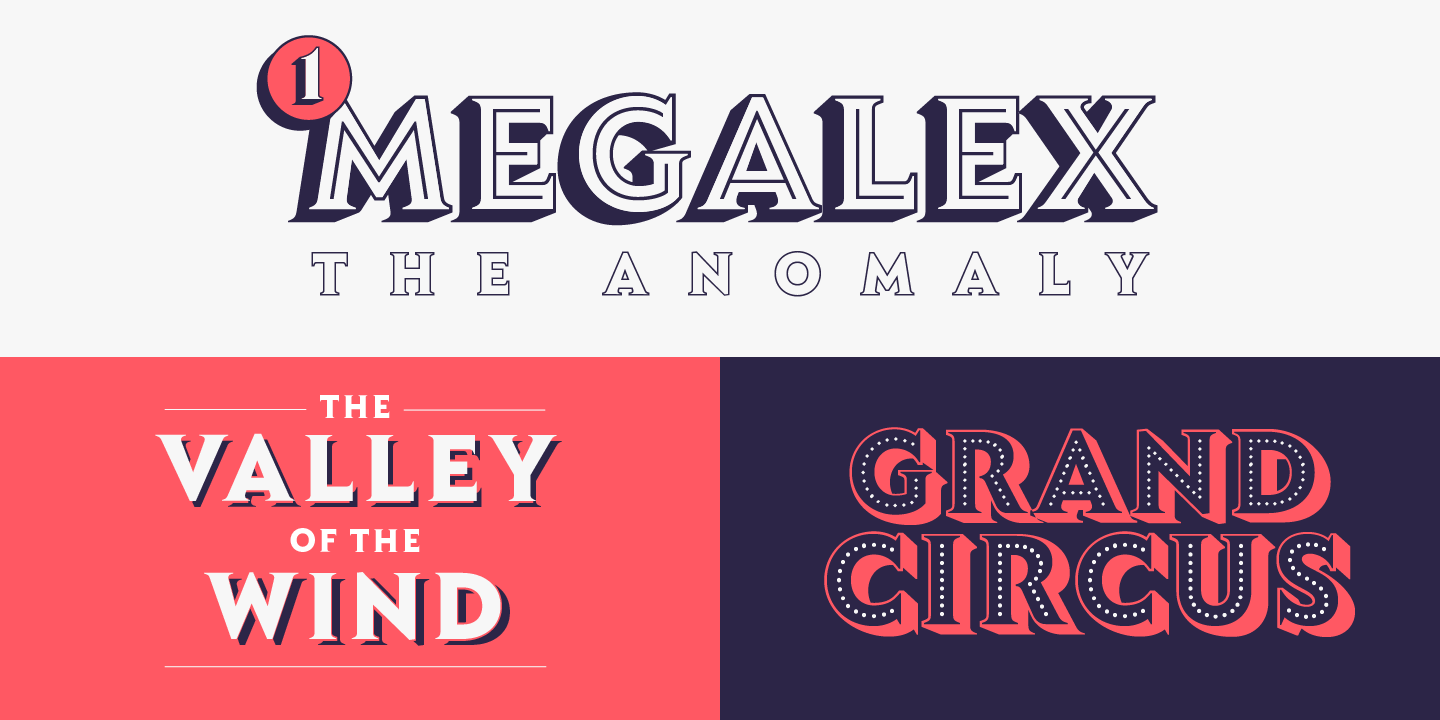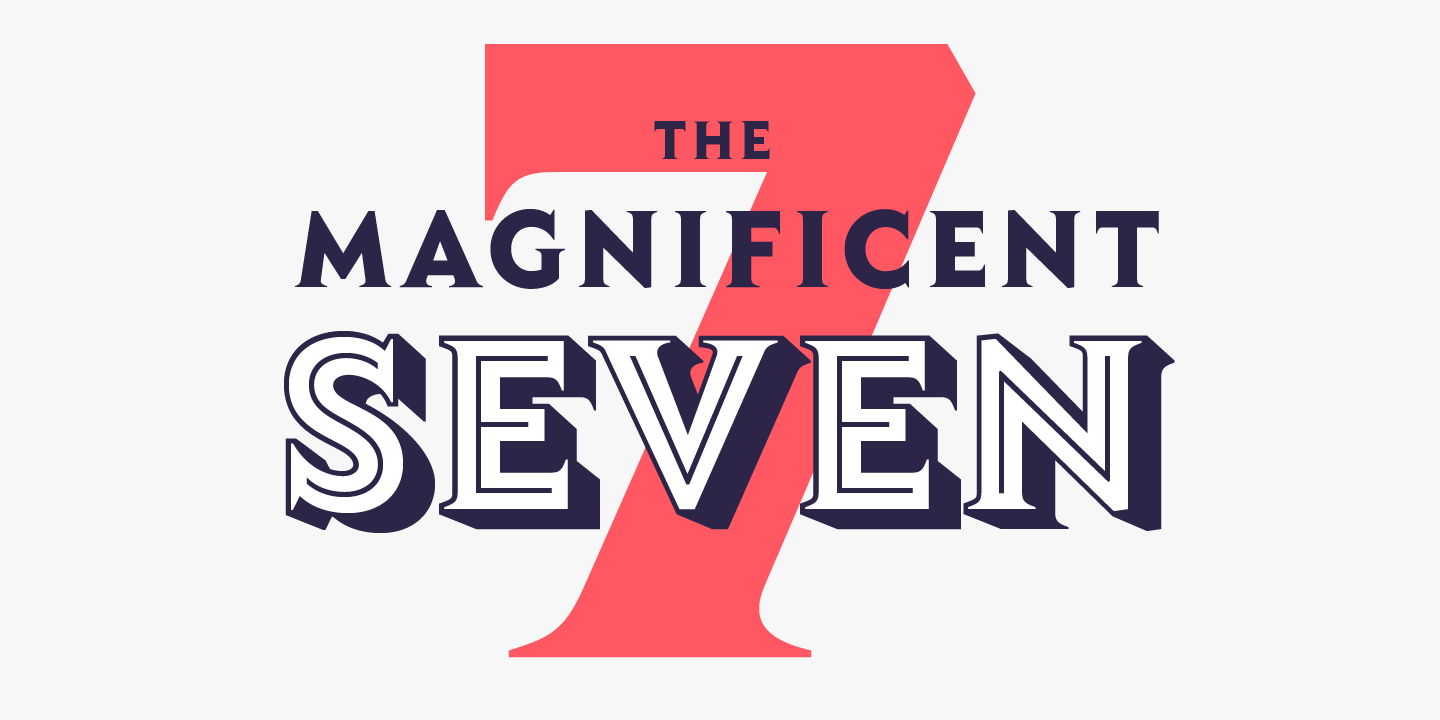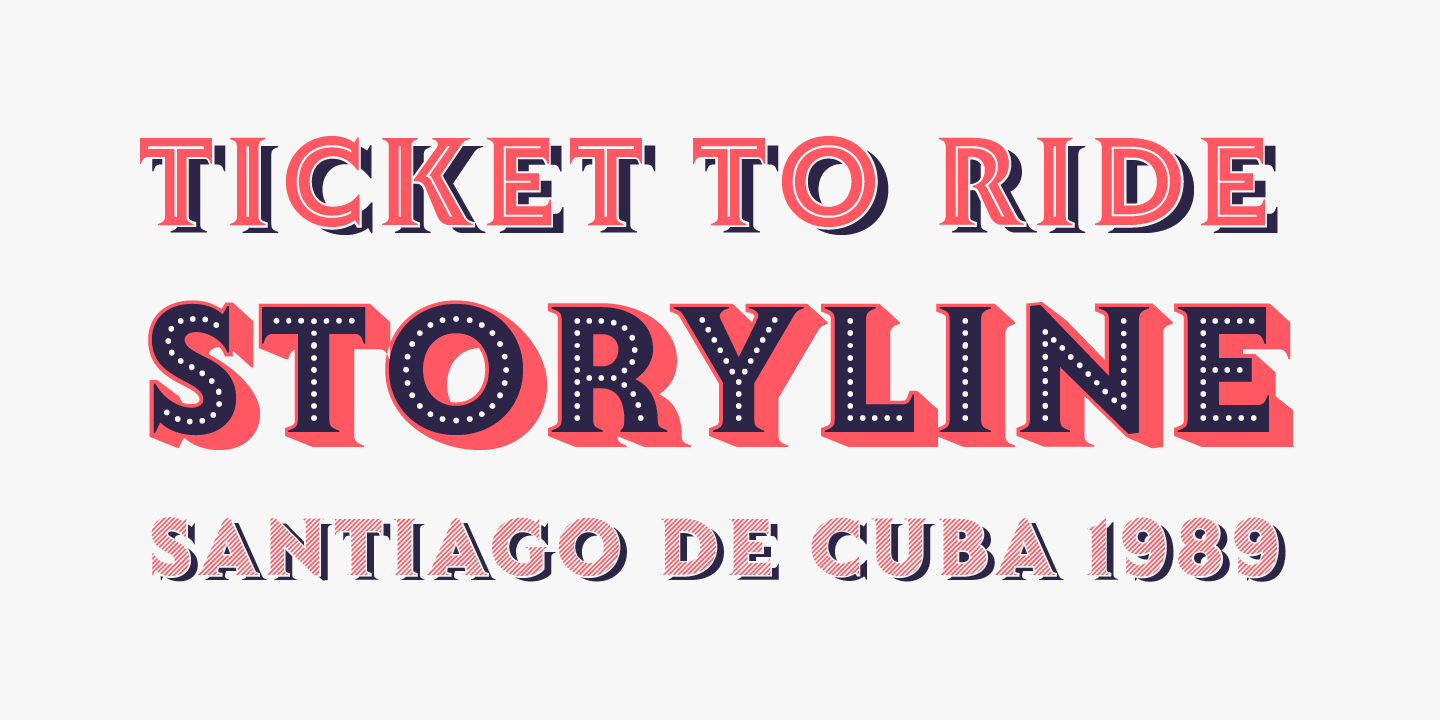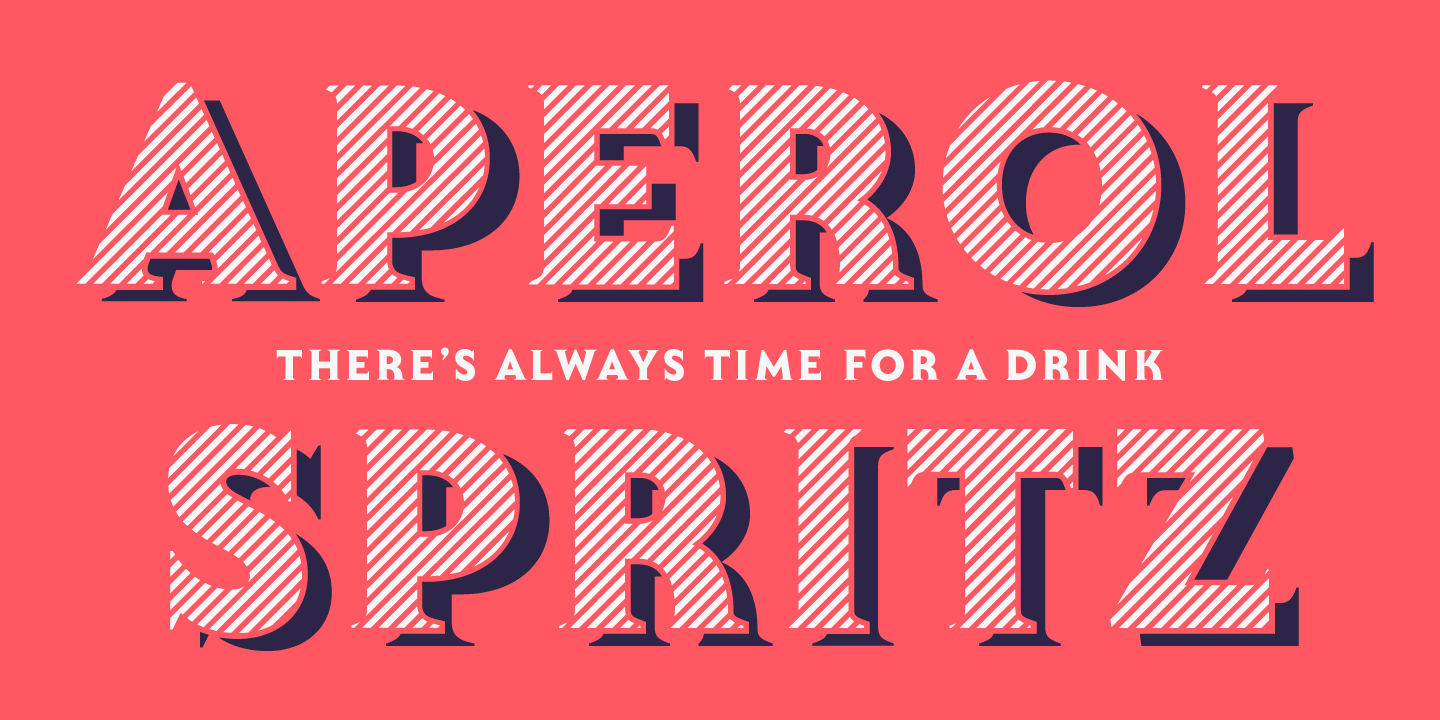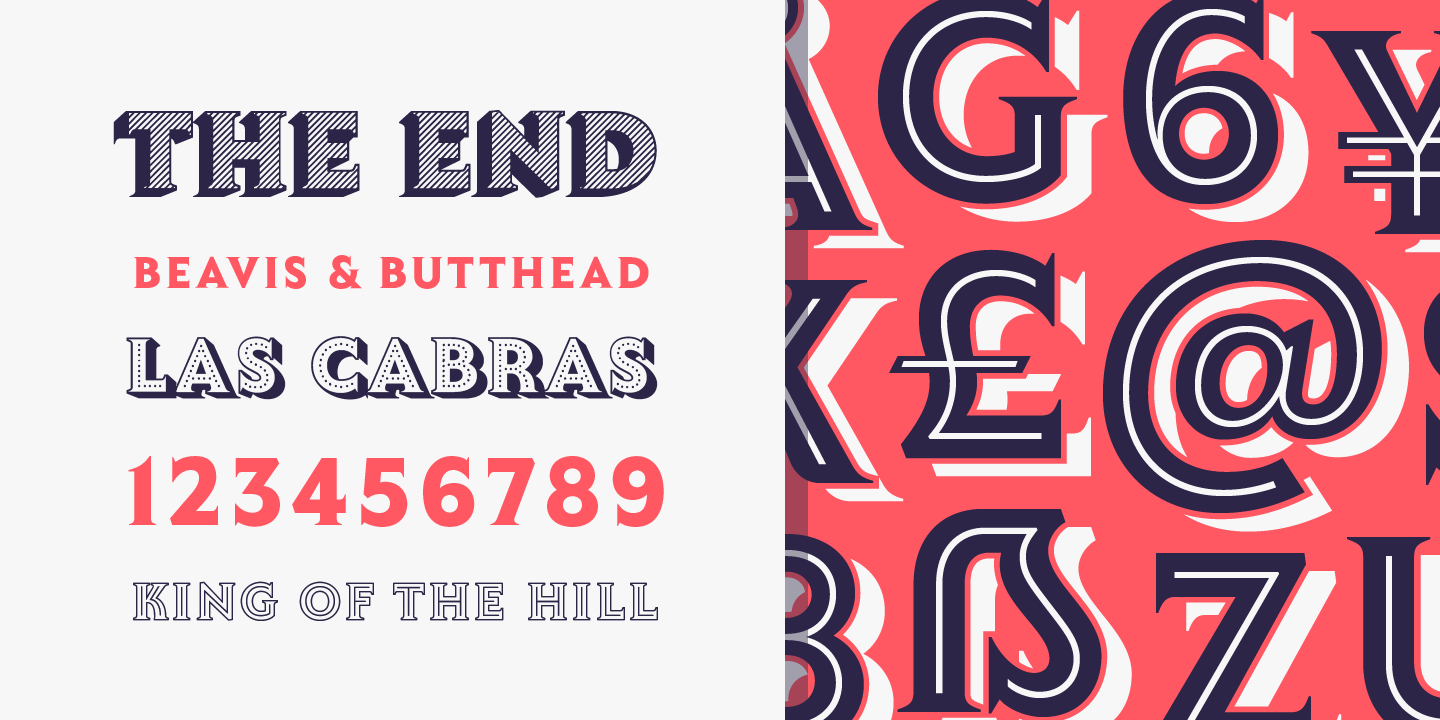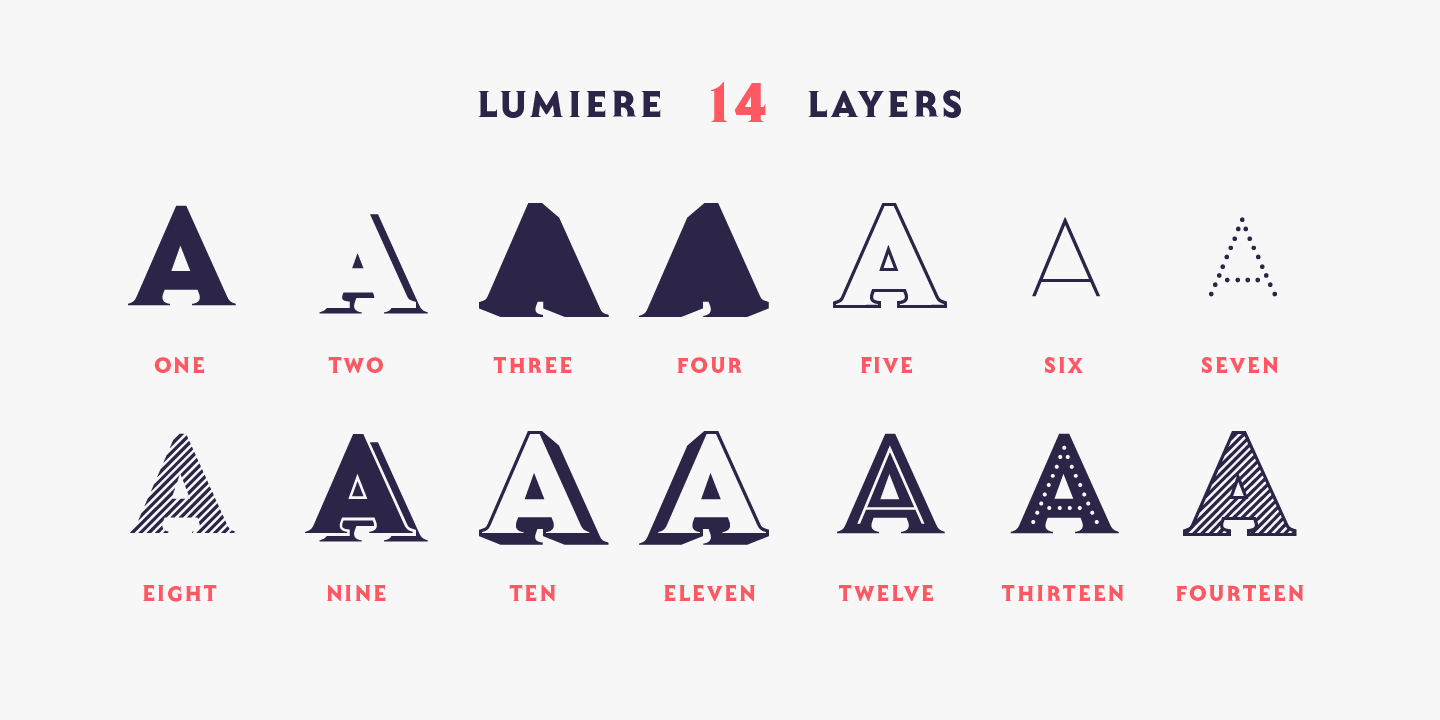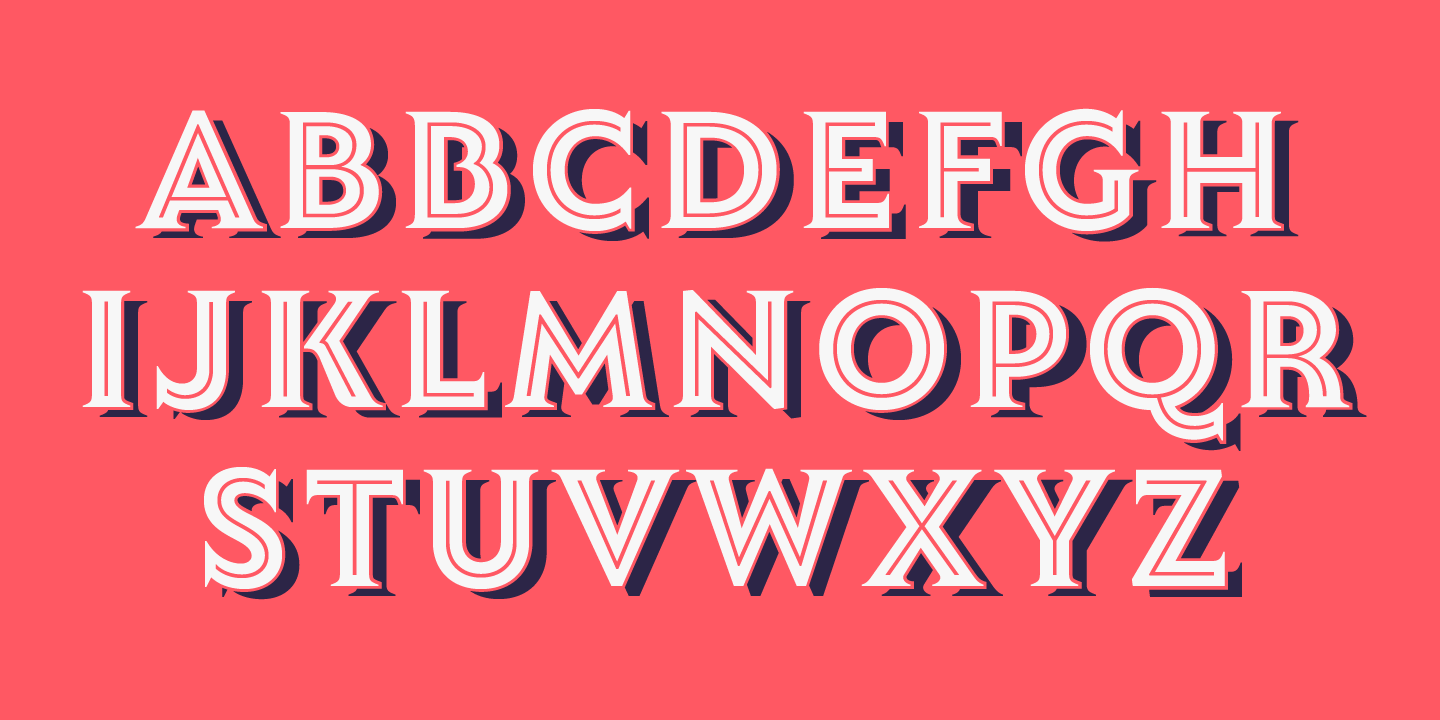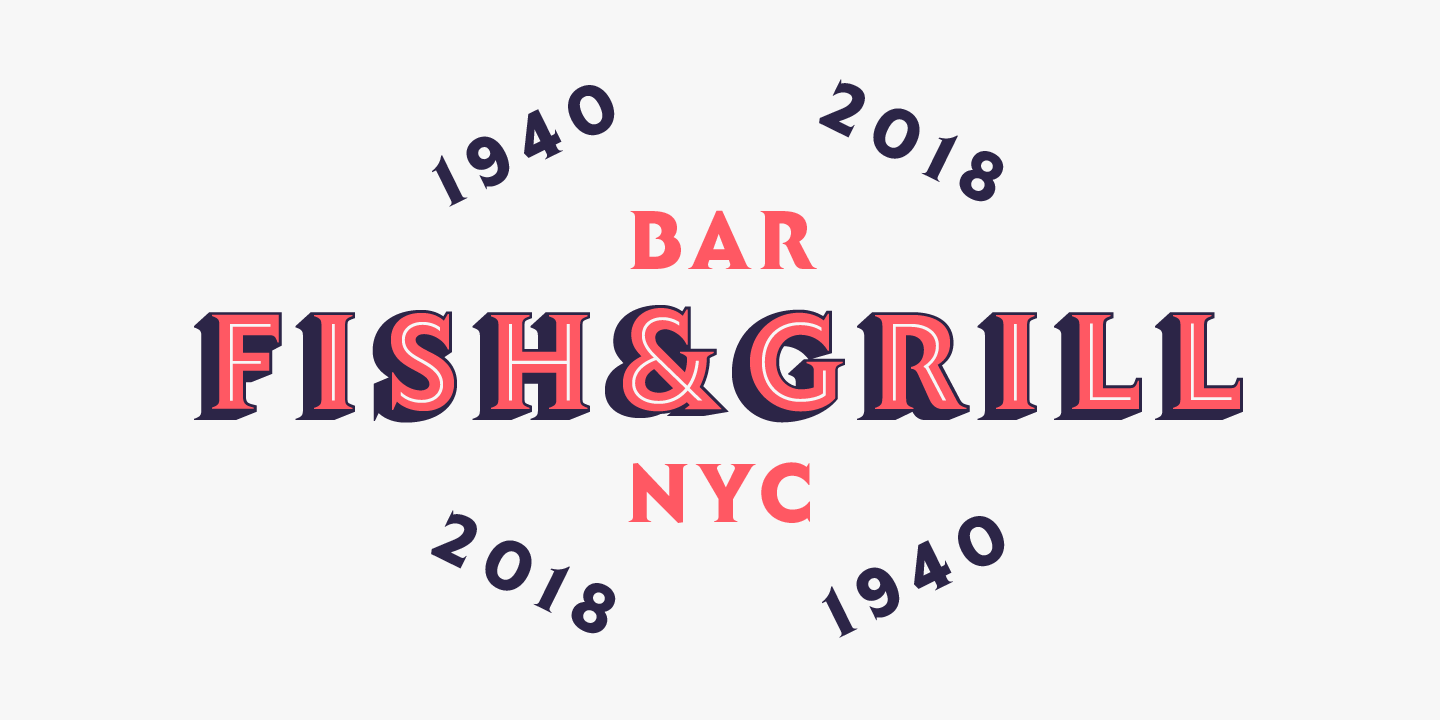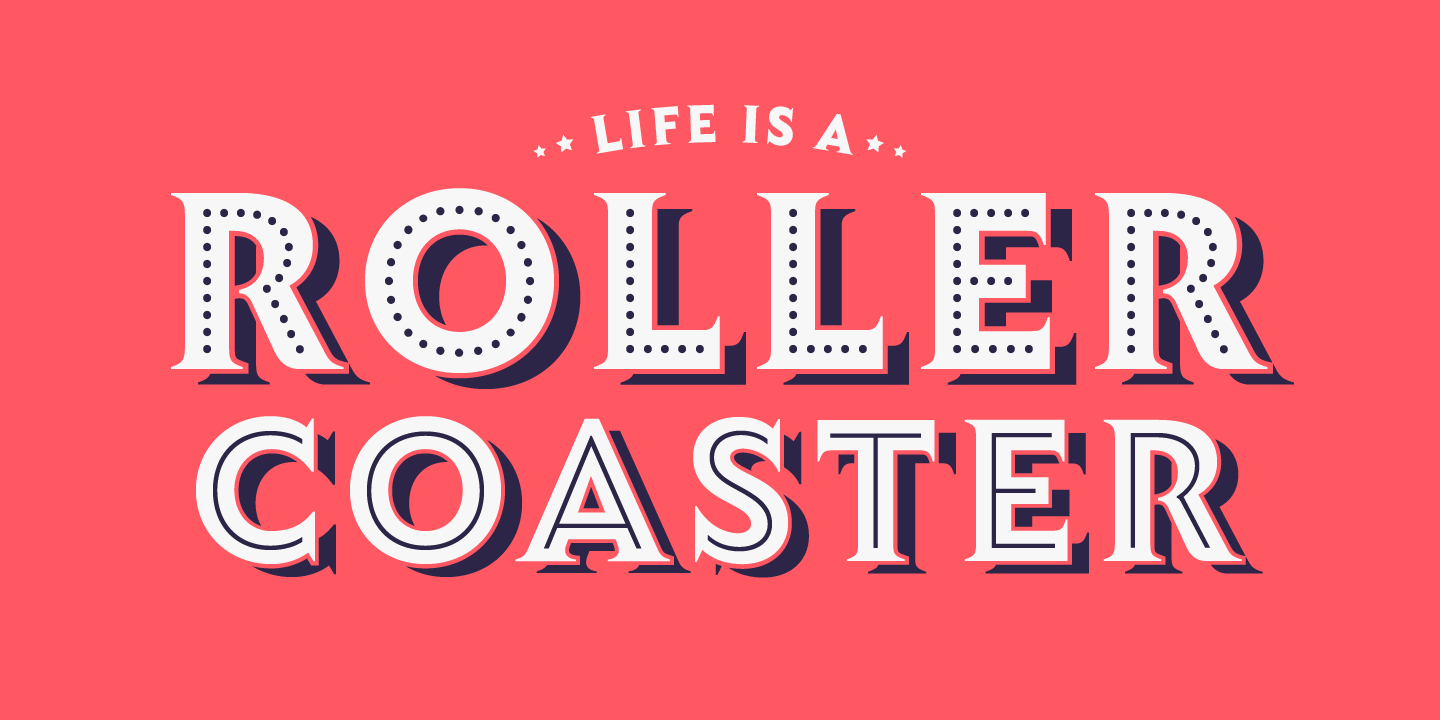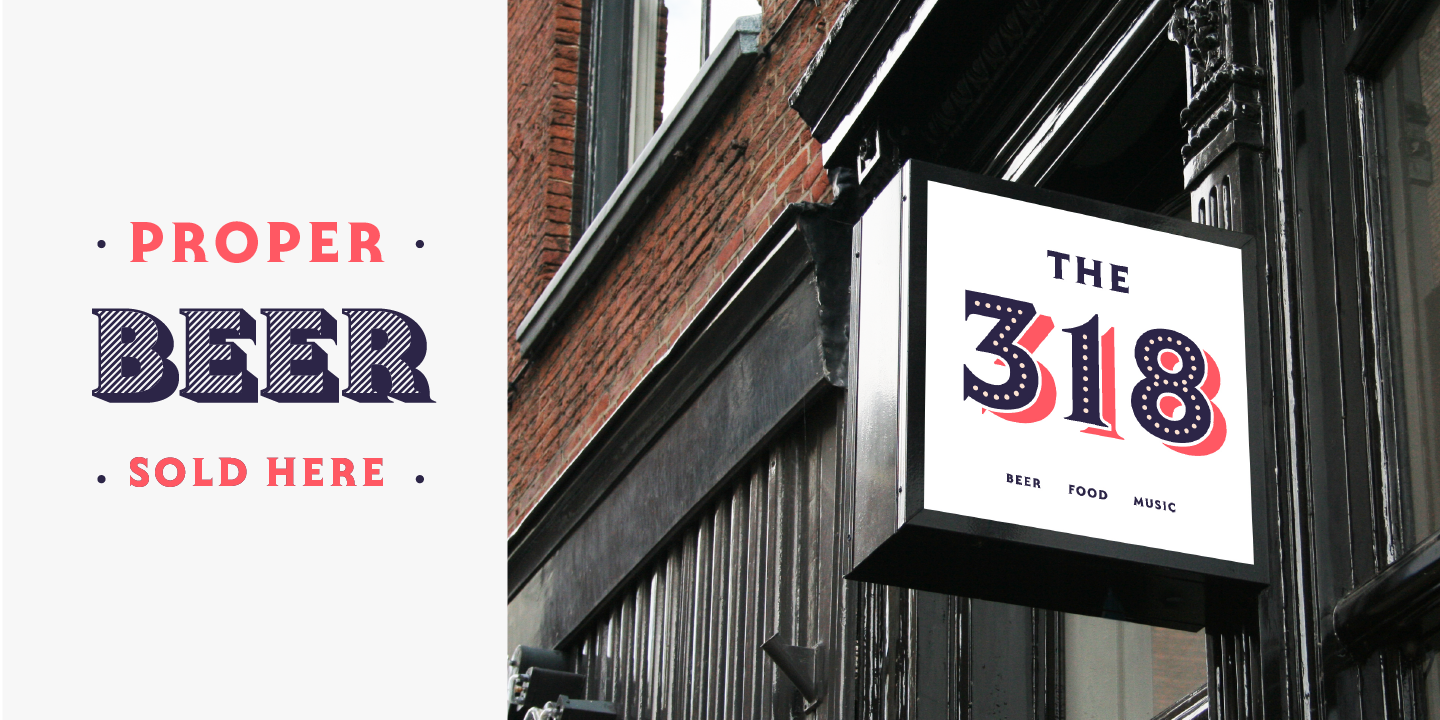
Lumiere Family (14 fonts)
The Lumiere Family comes in 14 styles and includes 2 different variants: multi-layered fonts that make Lumiere easier to use and single layer fonts which allow experimented designers to create their own combinations.
Lumiere is highly influenced by retro designs but it features a modern and simplified style that brings great value to your design work. The font is well suited for album covers, movie posters and book cover designs, among other uses.